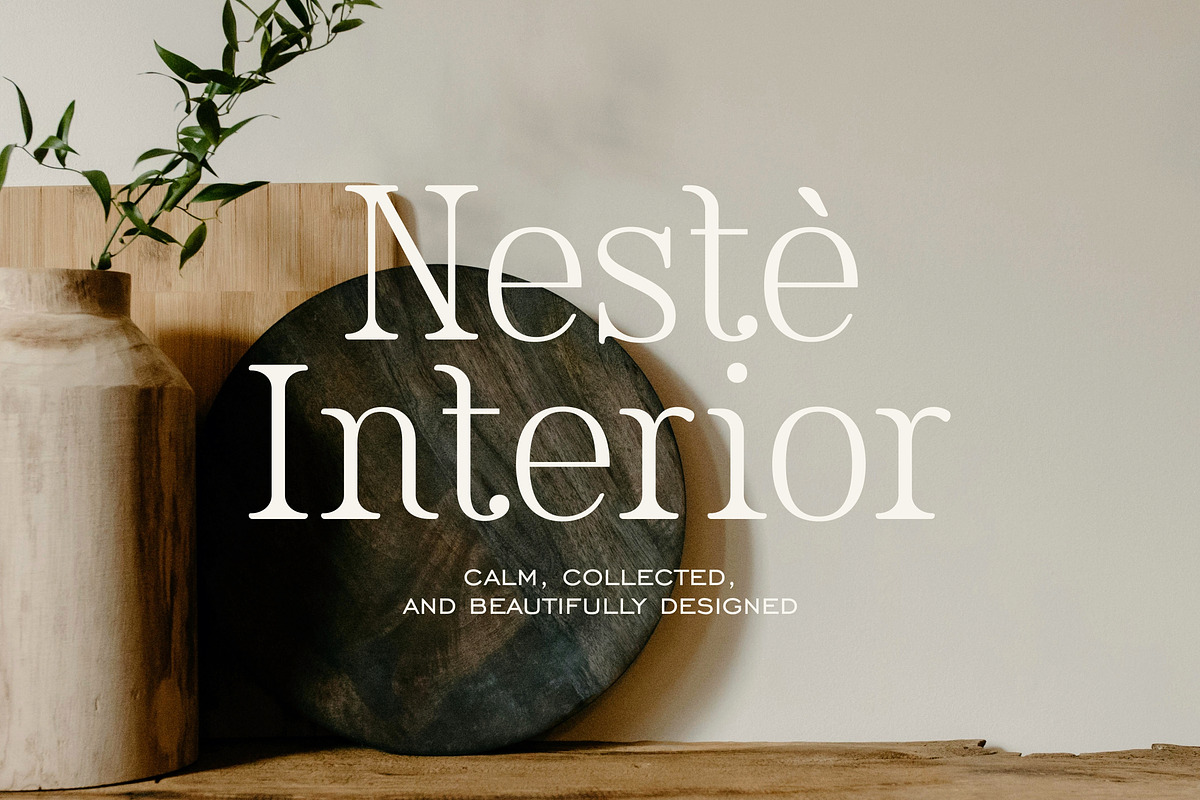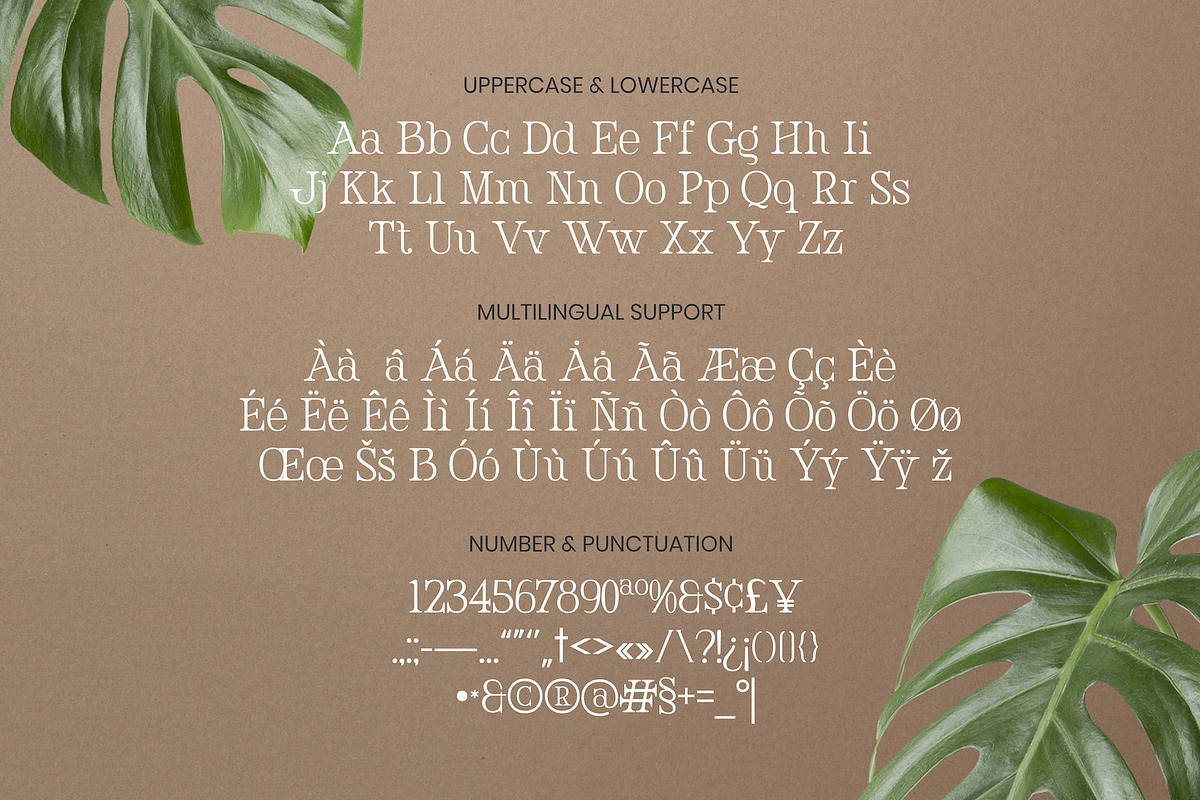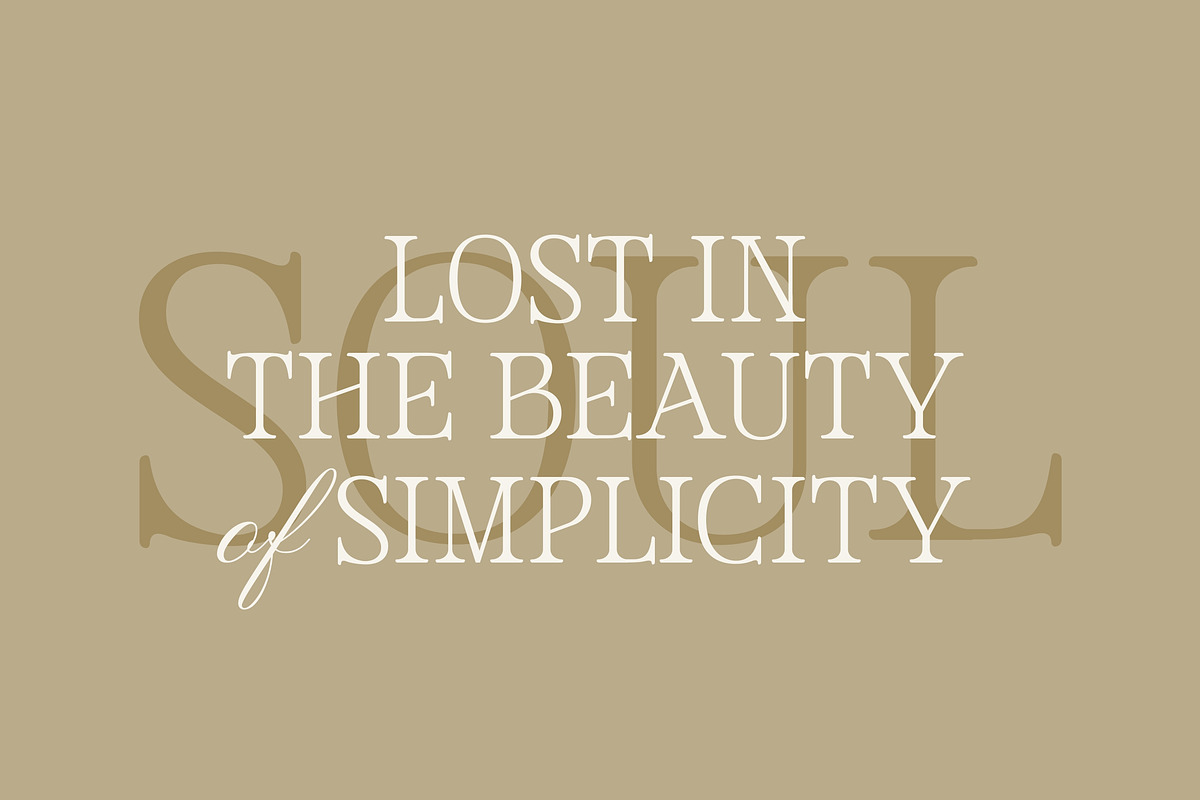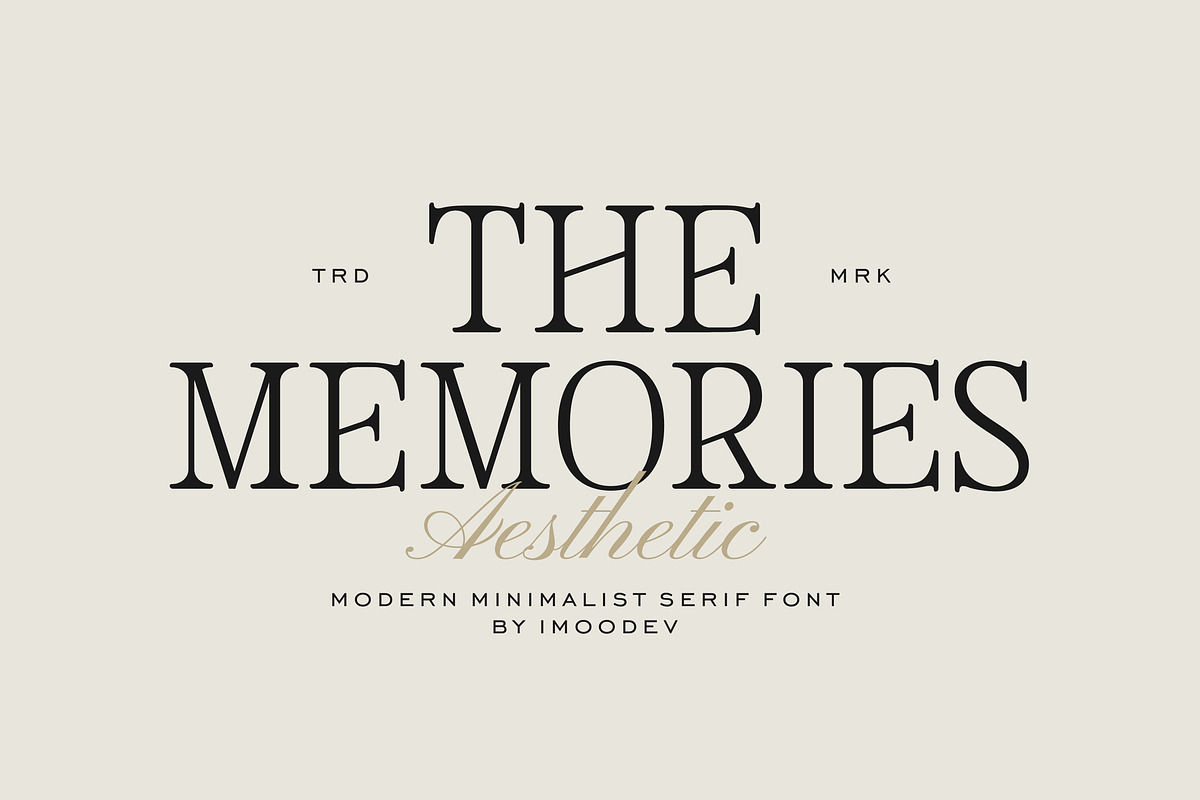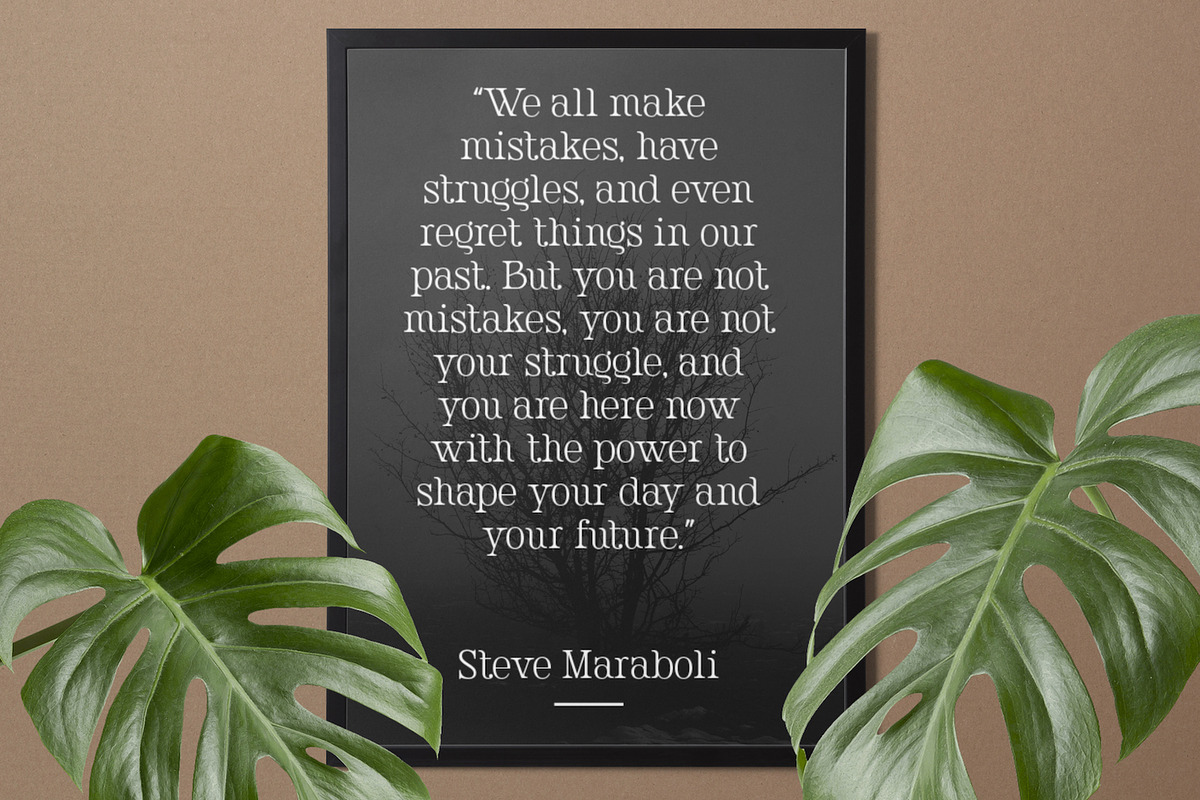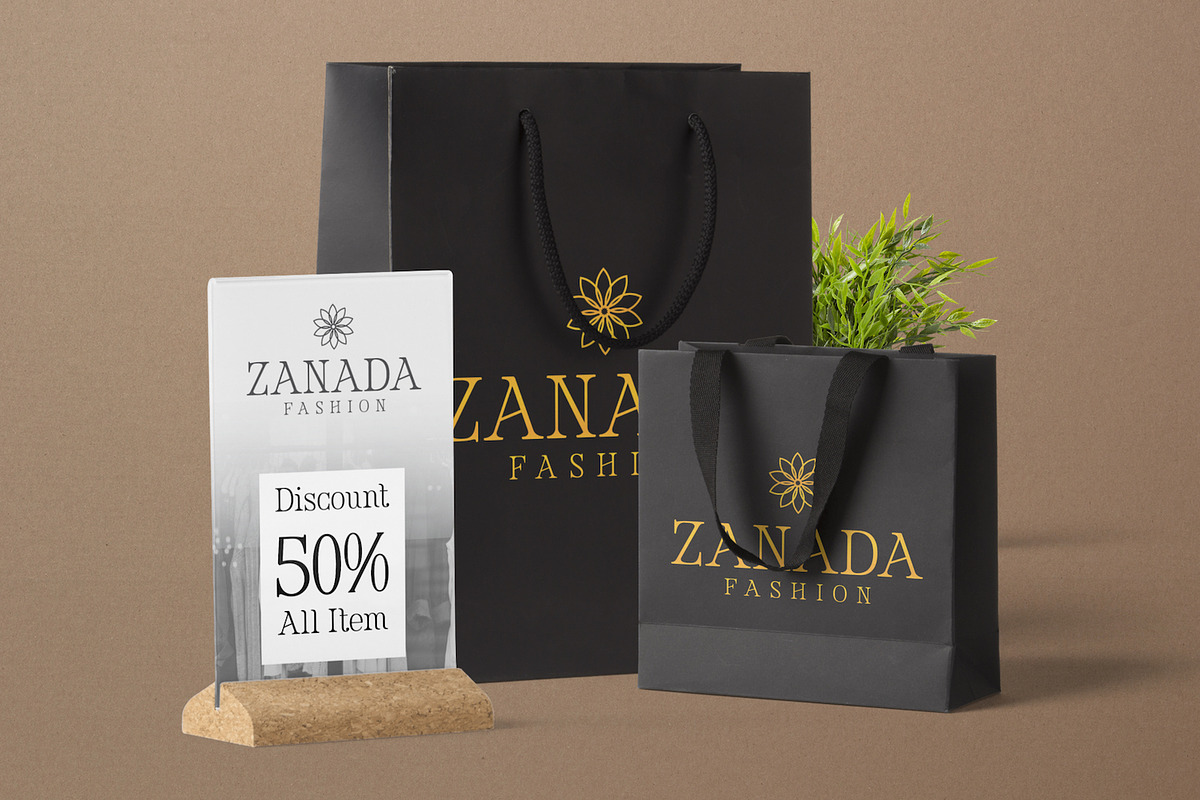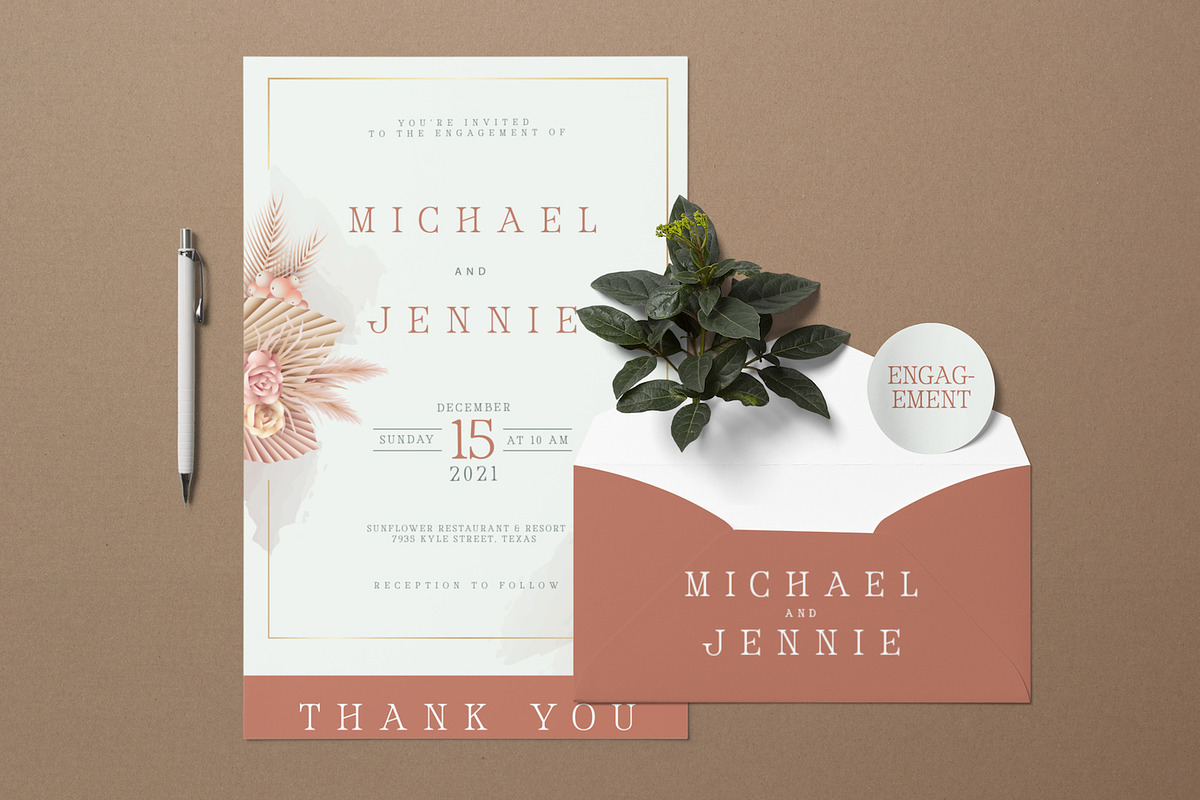
The Memories - Editorial Serif Font
The Memories is a timeless and elegant editorial serif font that brings a touch of classic sophistication to any project. This font is crafted with a keen eye for detail, featuring a beautiful contrast between its thick and thin strokes, which creates a refined and highly readable text.
The letterforms are based on traditional typography, with graceful, bracketed serifs that make it perfect for both headlines and body text. Perfect for this font is incredibly versatile and works wonderfully for luxury branding, fashion, wedding invitations, editorial design, fashion layouts, quote graphics, logos, and any project requiring a blend of vintage charm and modern elegance.
- Uppercase and Lowecase Characters.
- Numerals and Punctuations.
- Alternates and Ligatures.
- Multilingual Support.